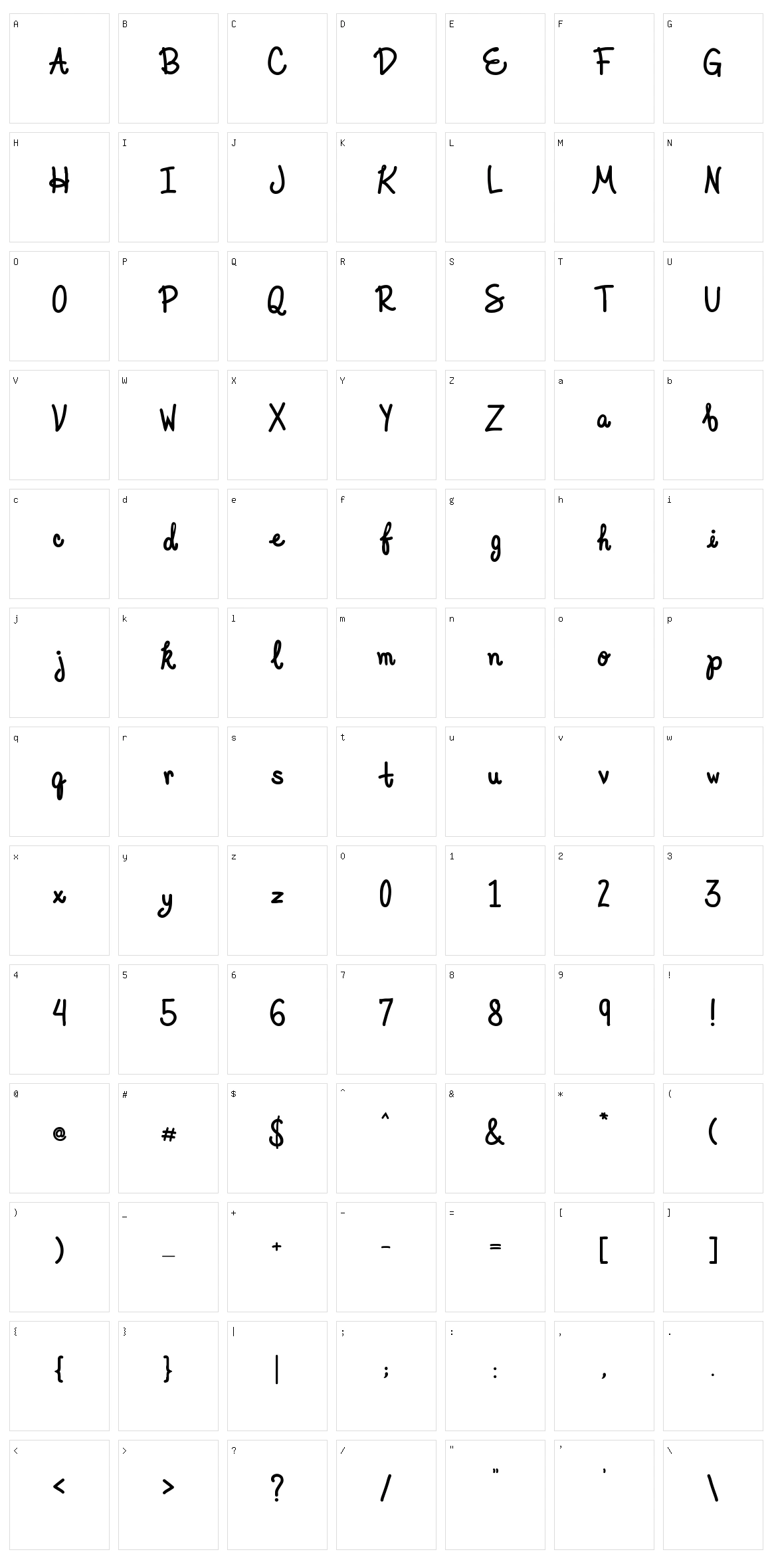
The free font Elegant Ink is carefully designed by Adazing Design, showcasing a thoughtful balance of creativity and usability and falls under the Script font style. When you download the ZIP file, it contains only 21.11 KB of font files, making it lightweight and quick to download. Please review the license details below to understand permitted usage and distribution rights. If license information is not available, we recommend using this font for personal projects only or contacting the author directly for commercial usage permissions.